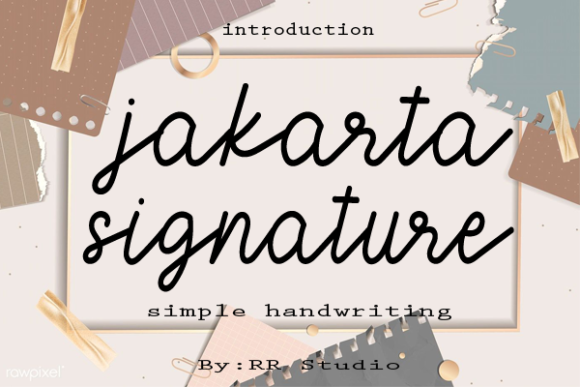
Jakarta Signature Font
About Jakarta Signature Font
Jakarta Signature is a ravishing handwritten font. This versatile script font has a wide spectrum of applications ranging from greeting cards to headlines and is guaranteed to add a romantic feel to your next project.